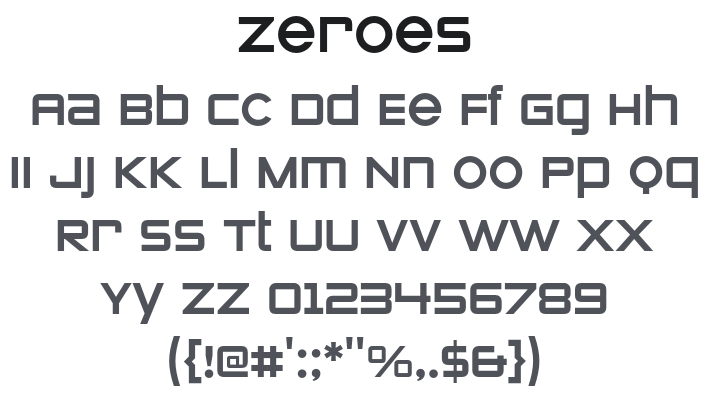
Zeroes Font Family
About Zeroes
Zeroes is a collection of three fashion-inspired geometric display typefaces — clean, minimal, and elegant with a refined modernist confidence inspired by the "Canadian tuxedo" aesthetic. Each variant offers slightly different proportions and styling, sharing the same cool, understated geometry. Perfect for fashion branding, editorial headlines, luxury packaging, minimalist posters, and any design needing sophisticated, quietly stylish typographic presence.